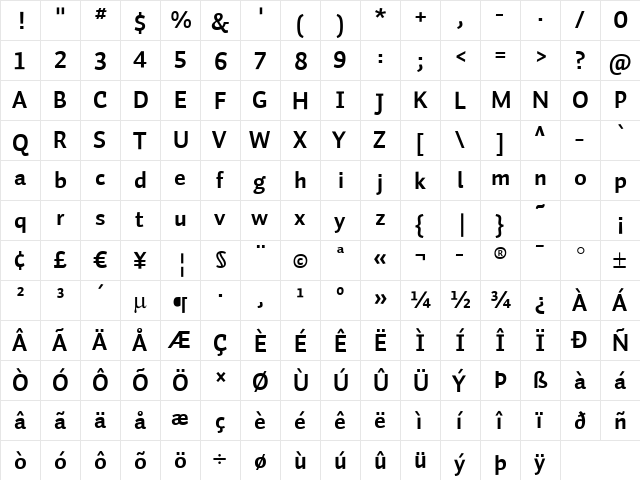
Auto 1 Bold LF Font Preview
Auto 1 Bold LF
Auto 1 Bold LF Font Details
| Style | Bold LF |
| Designer | http://www.underware.nl |
Design Context for Auto 1 Typeface
Auto 1 offers clean, dependable letterforms without strong stylistic allegiance, making it a practical choice for designers who need flexibility. The heavy weight commands attention and anchors typographic hierarchies.